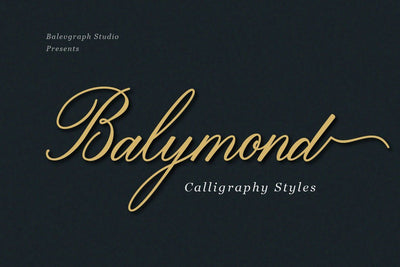
Balymond - Calligraphy Font
Balymond is a dazzling script font. This font is neatly crafted and highly detailed. Whatever the topic, this font will be a wonderful asset to your font library, as it has the potential to enhance any creation.
- Uppercase, Lowercase, Numerals & Punctuations
- Ligature & Alternate
- Multilingual support